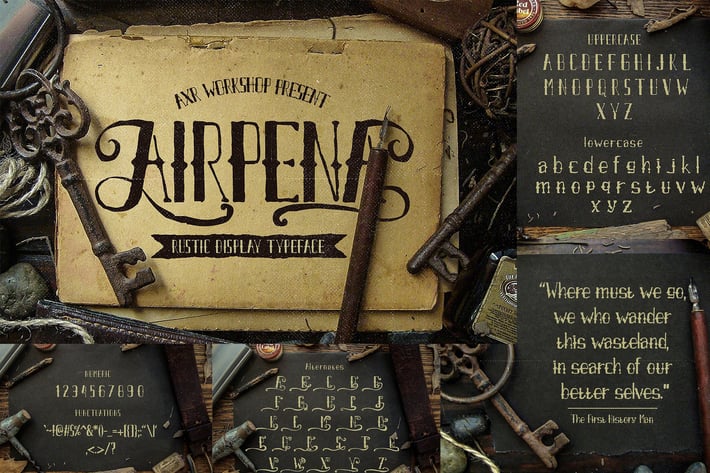
Airpena Rustic Display Font
Inspired from rusted and distressed handdrawn lettering used on retro motorcycle. AIRPENA is represent the retro rustic style of it.
It comes with full alphabet alternates for Uppercase (Front & end) & Lowercase (end) its give you an exciting experience to use it in titling and or writing.